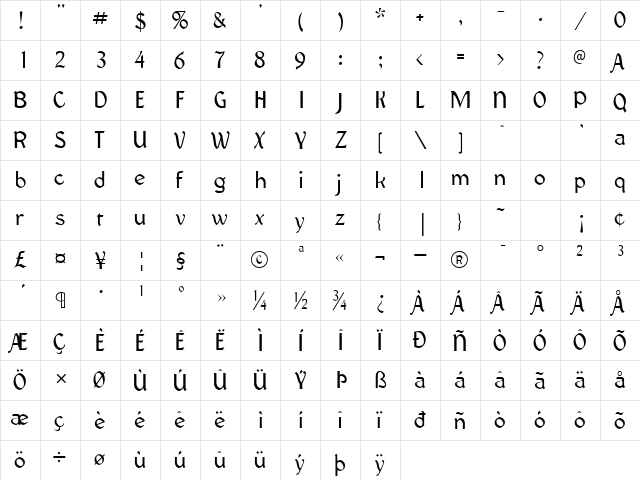
Federhozen Plain
Design Context for Federhozen Typeface
Federhozen takes a measured approach to typography — its balanced proportions and neutral character make it a reliable workhorse for both digital and print work.